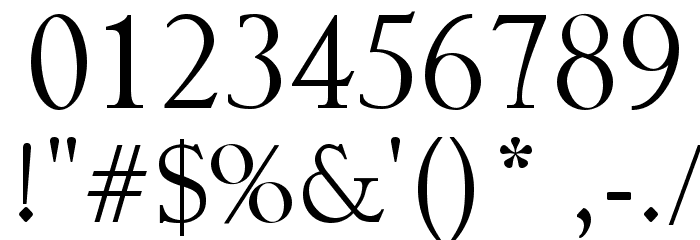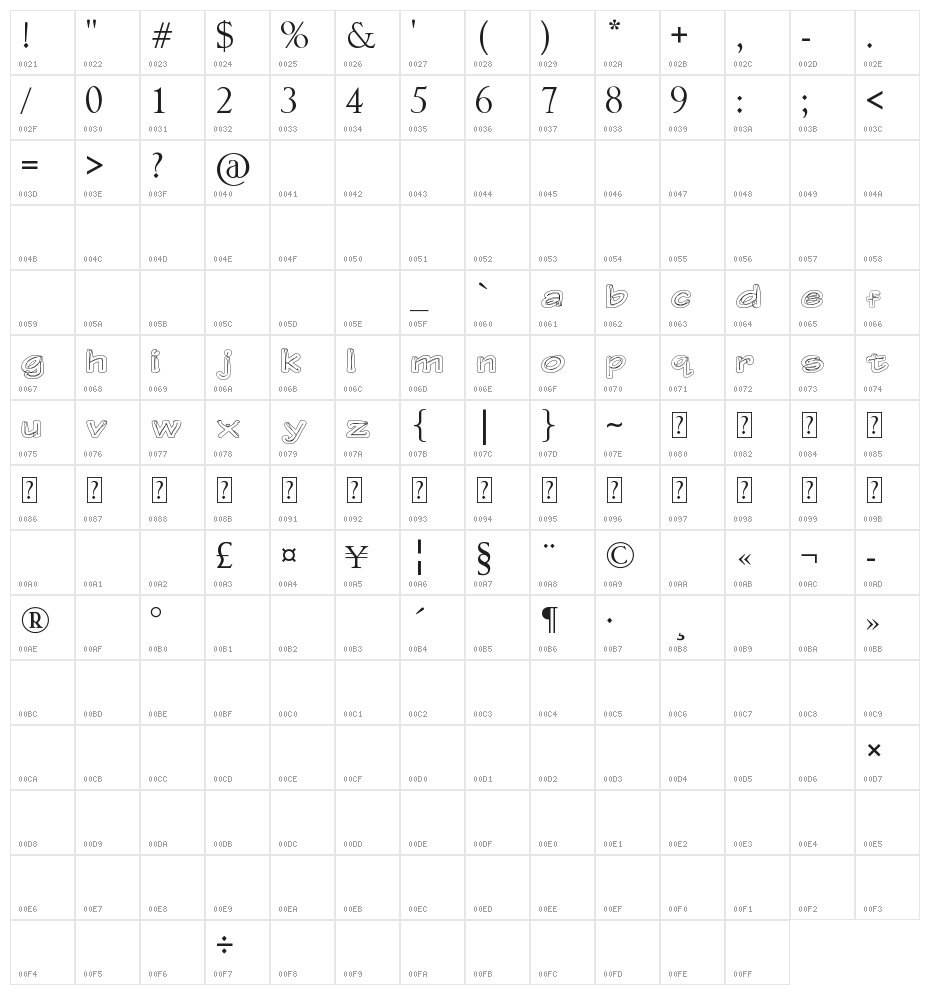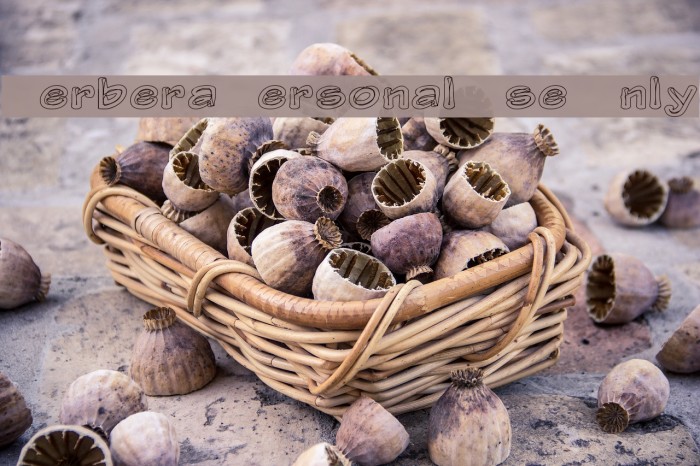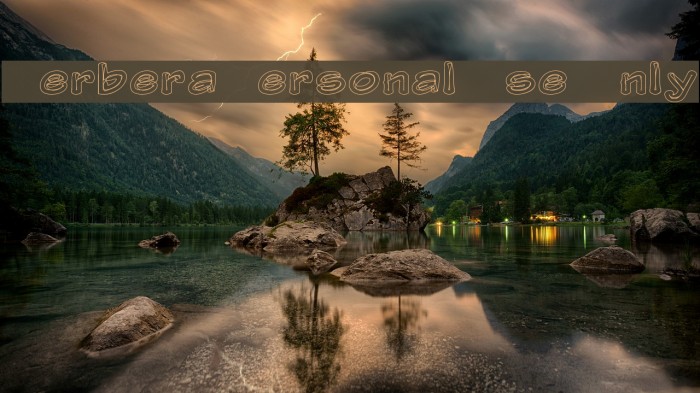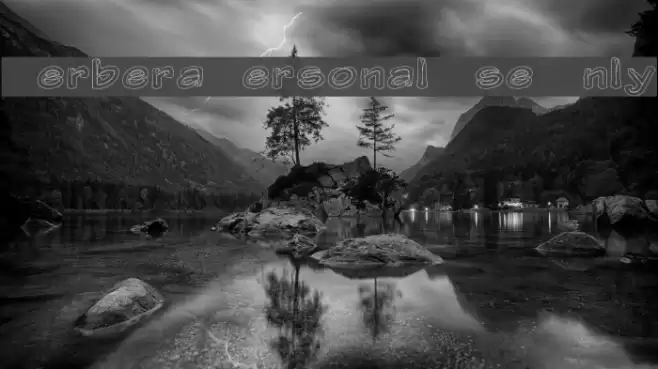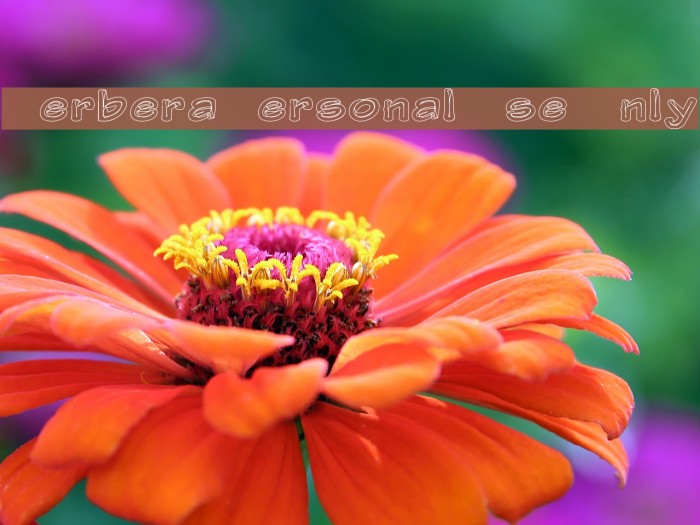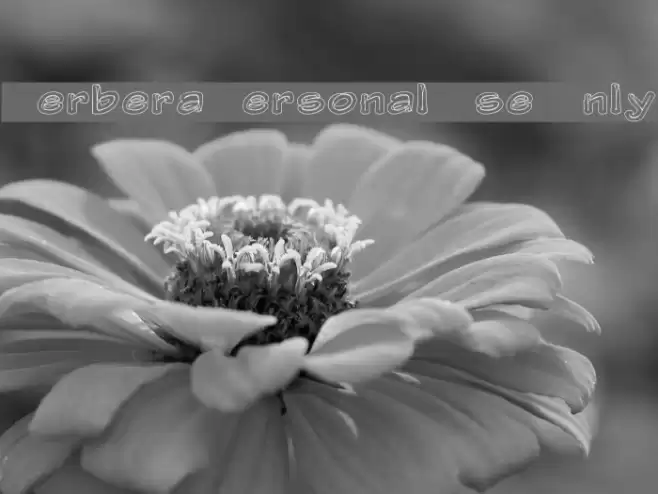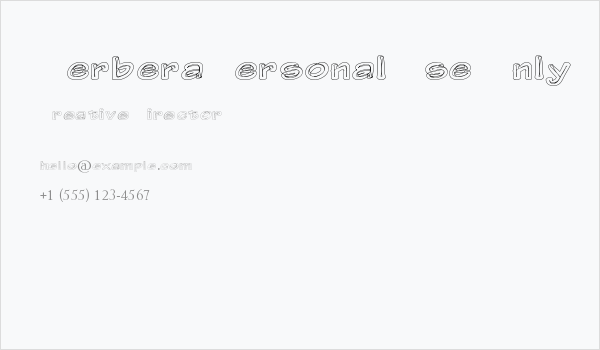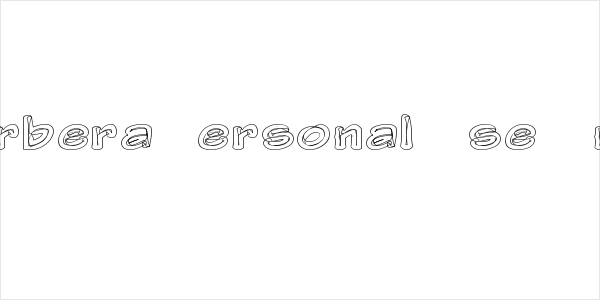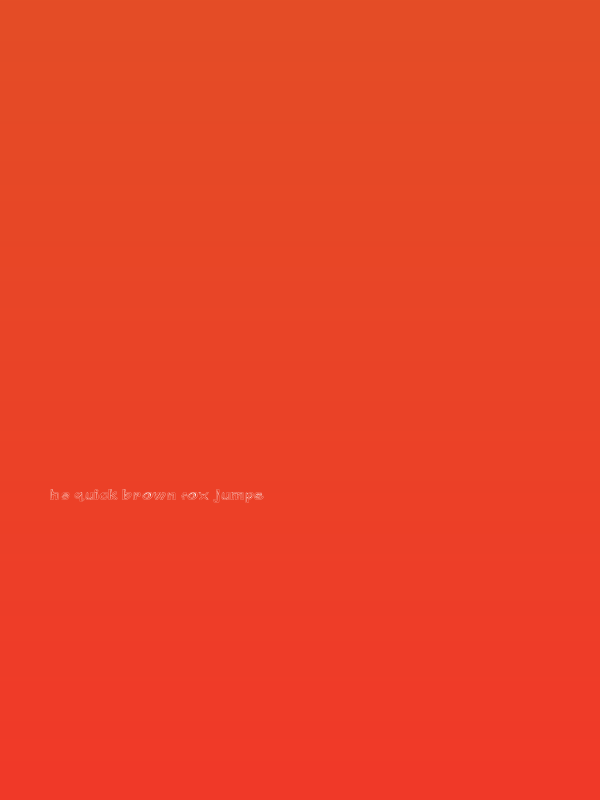
Gerbera Personal Use Only Font
Gerbera Personal Use Only Description
This font features a playful and decorative style with a hand-drawn appearance. The lowercase letters have a whimsical, outlined design that adds a sense of fun and creativity. The numbers and special characters maintain a more traditional serif style, providing a unique contrast. The overall look is dynamic and engaging, making it suitable for projects that require a touch of personality and flair. The font's distinctiveness lies in its combination of outlined lowercase letters and classic serif numerals, offering versatility in design applications.
| Proposed Projects | Ideal for children's book covers, playful branding, creative posters, and artistic invitations. |